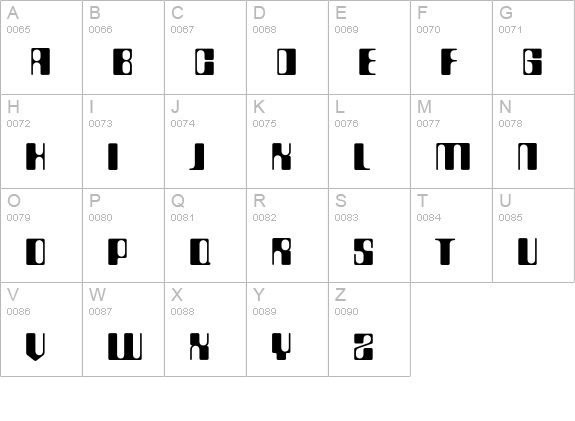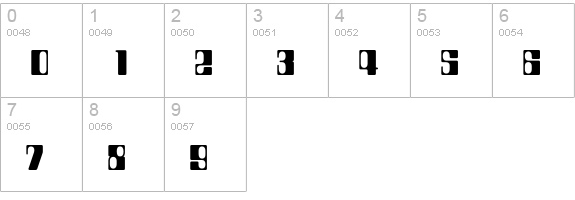
CountdownEF Font Details
CountdownEF font is a modern and sleek typeface that exudes a sense of urgency and dynamism. With its sharp edges and futuristic design, this font is perfect for projects that require a contemporary and edgy look. CountdownEF is available for free download at FontsMarket.com, making it accessible to all designers and creatives looking to add a touch of modernity to their work. Whether you're creating posters, websites, or branding materials, CountdownEF font will make your designs stand out with its bold and impactful presence. Let your creativity shine with CountdownEF font, the perfect choice for projects that demand a cutting-edge aesthetic.